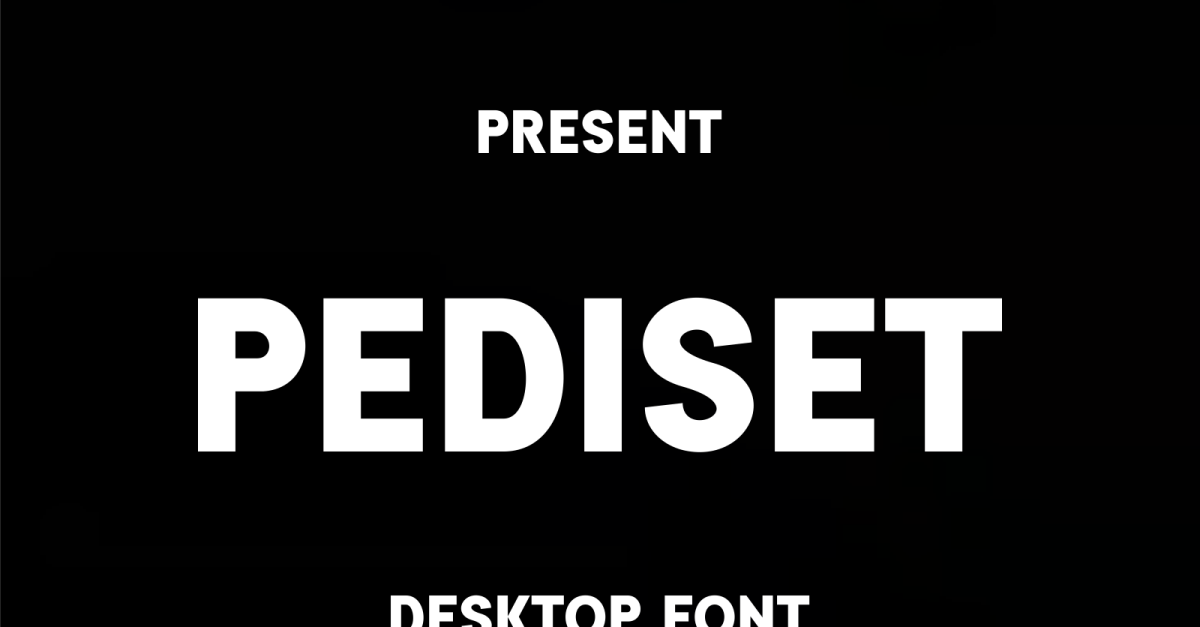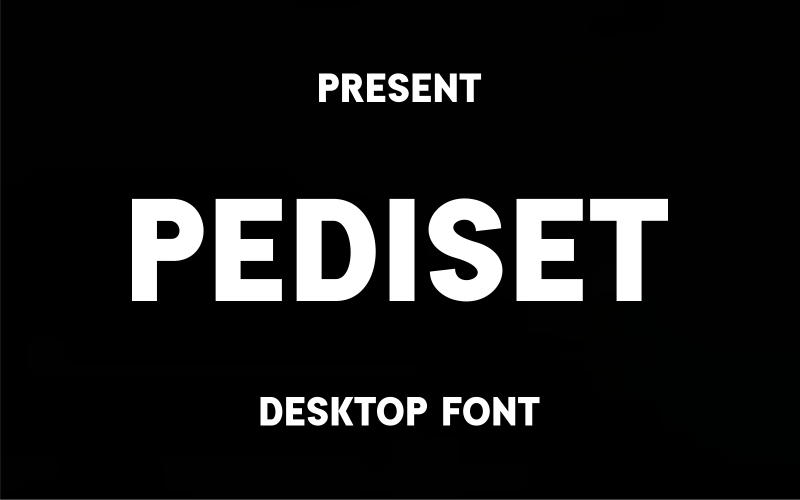
Pediset – Modern Sans-Serif Desktop Font
Pediset is a clean and modern sans-serif font designed for desktop use. Ideal for UI, branding, presentations, and everyday design needs. Its simple and readable form brings clarity and style to both screen and print. Includes OTF and TTF formats.